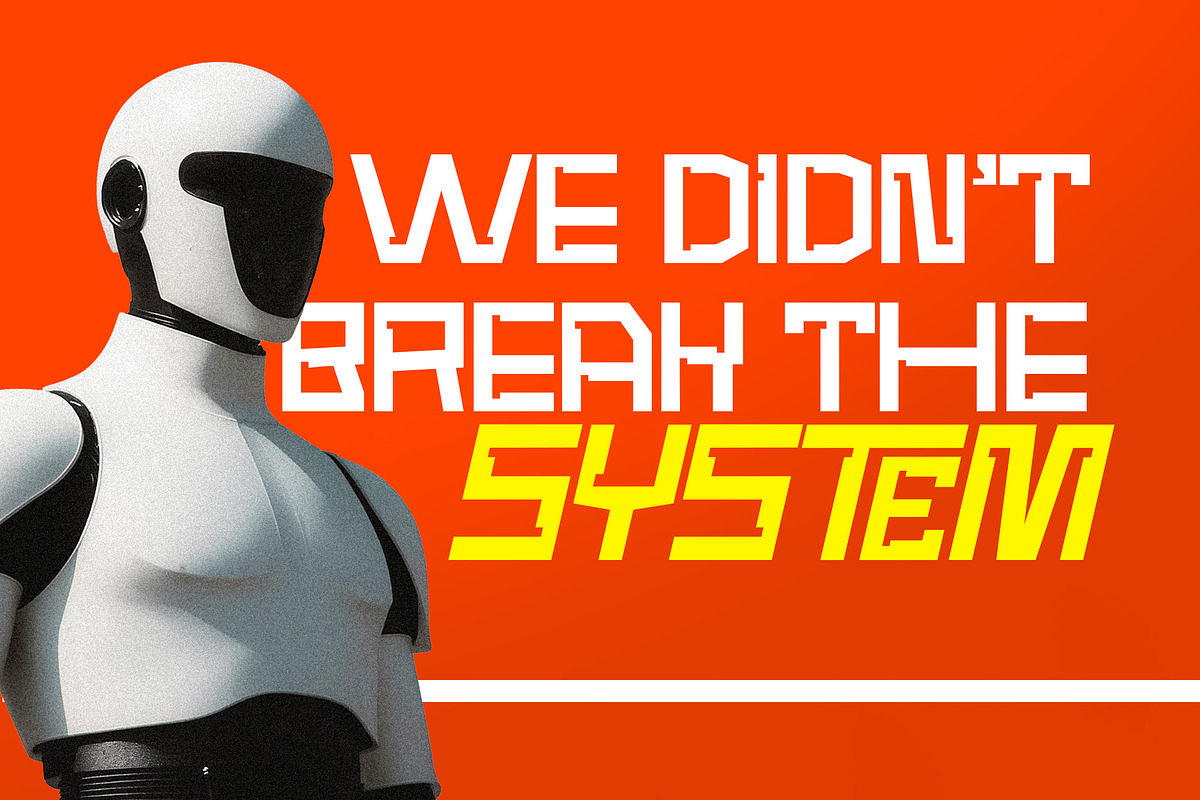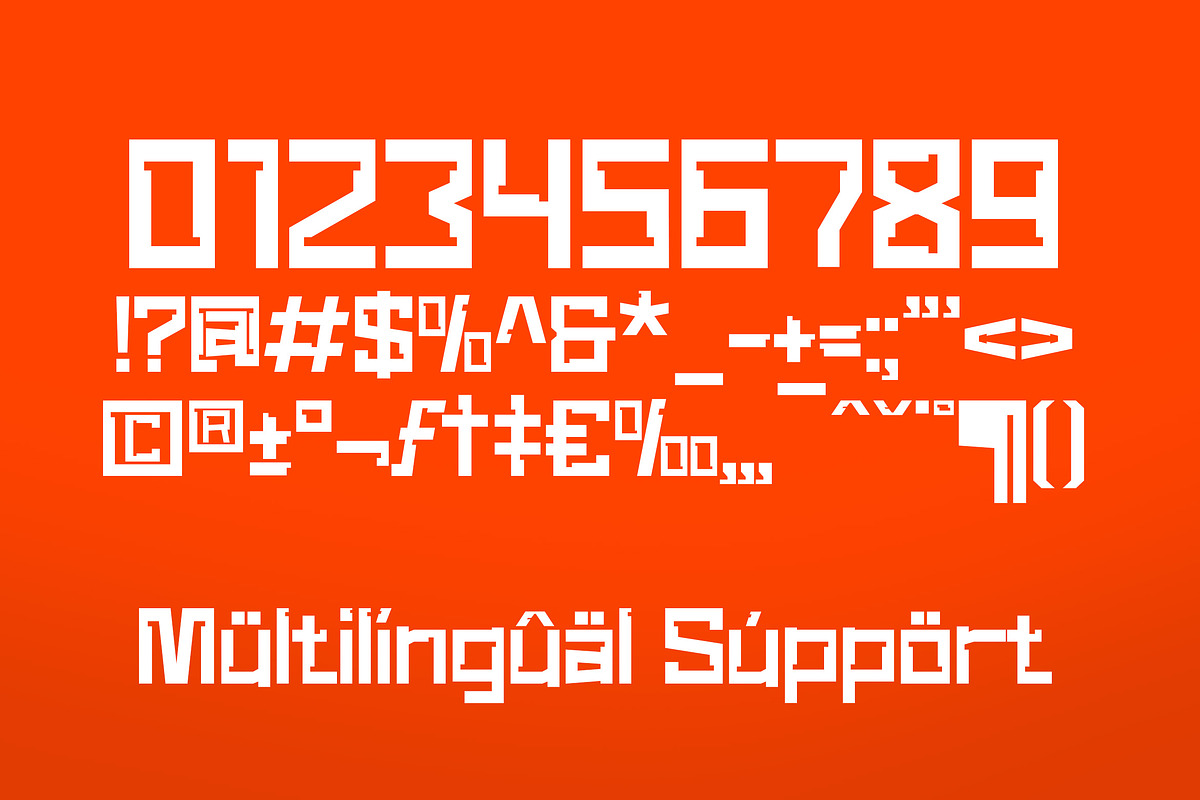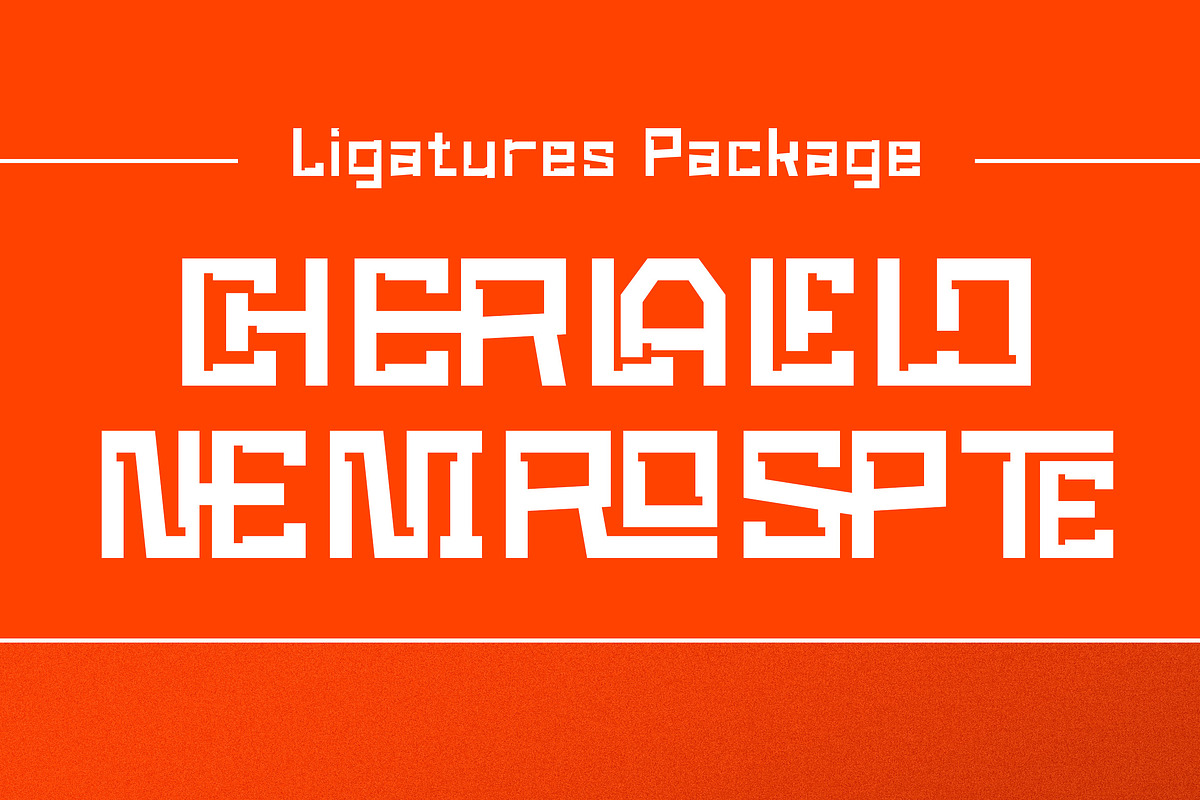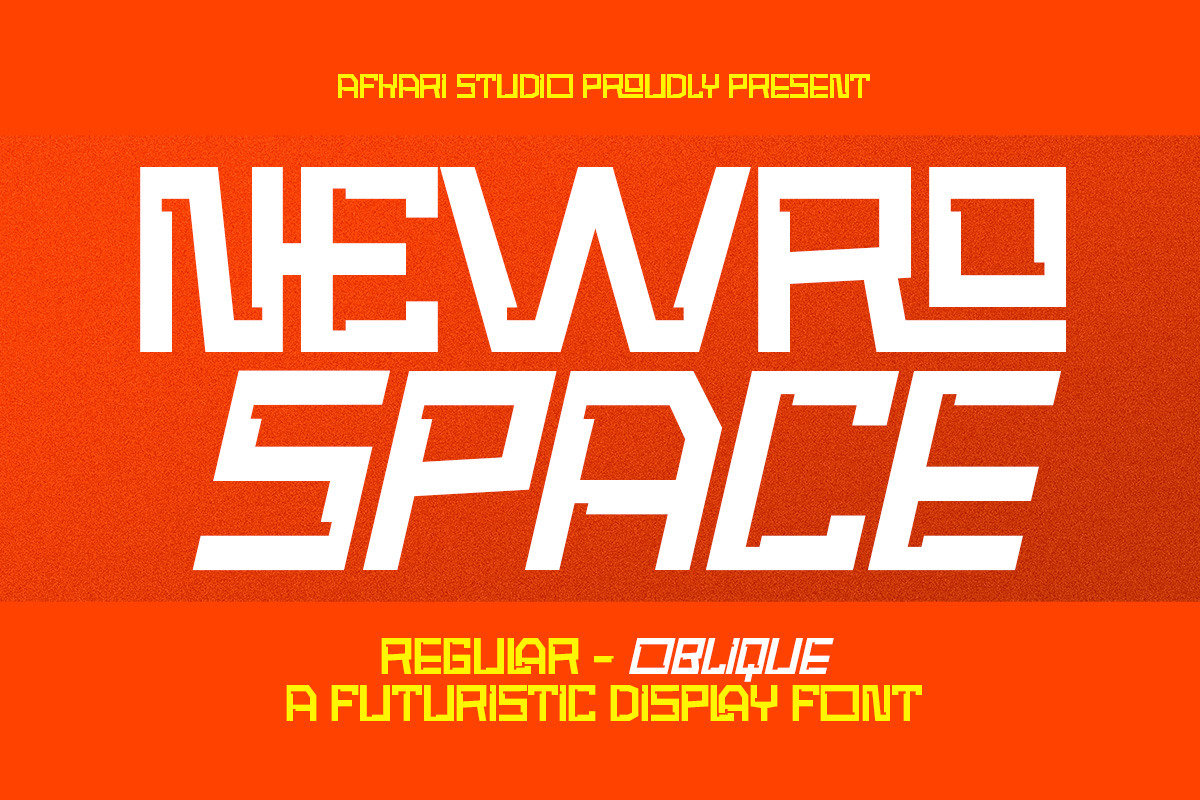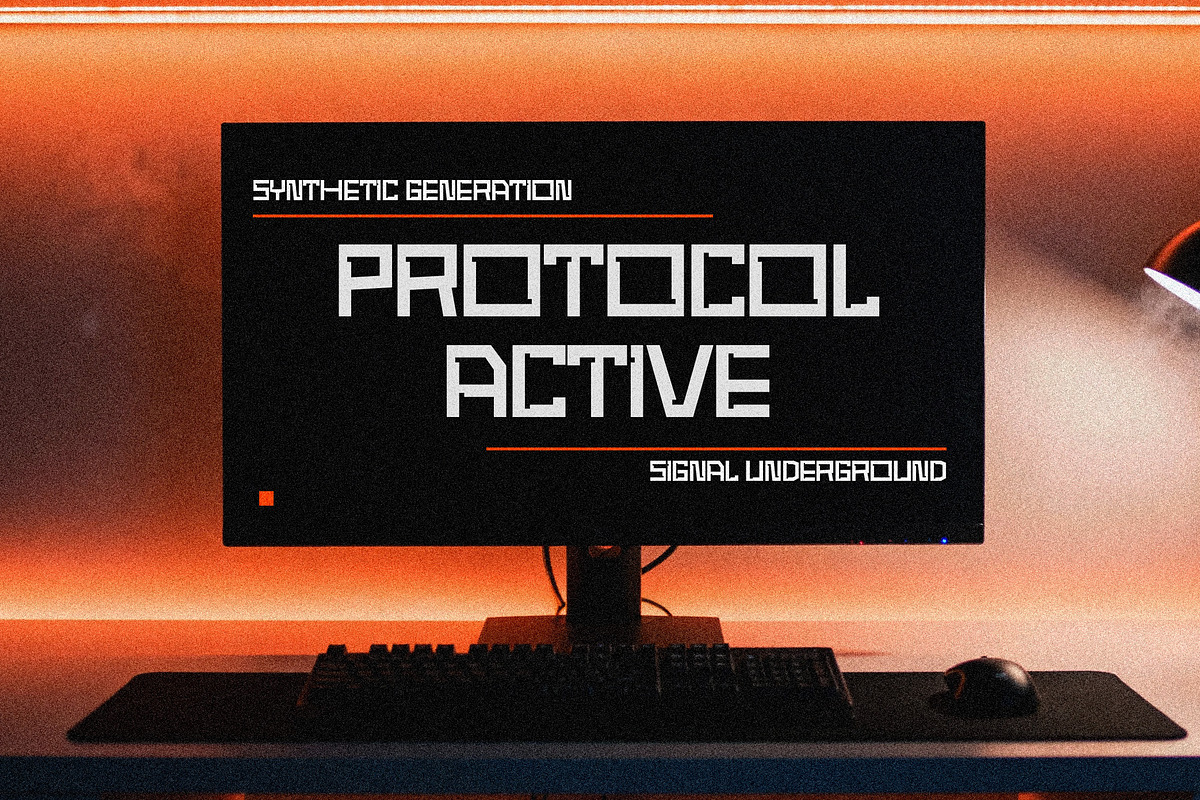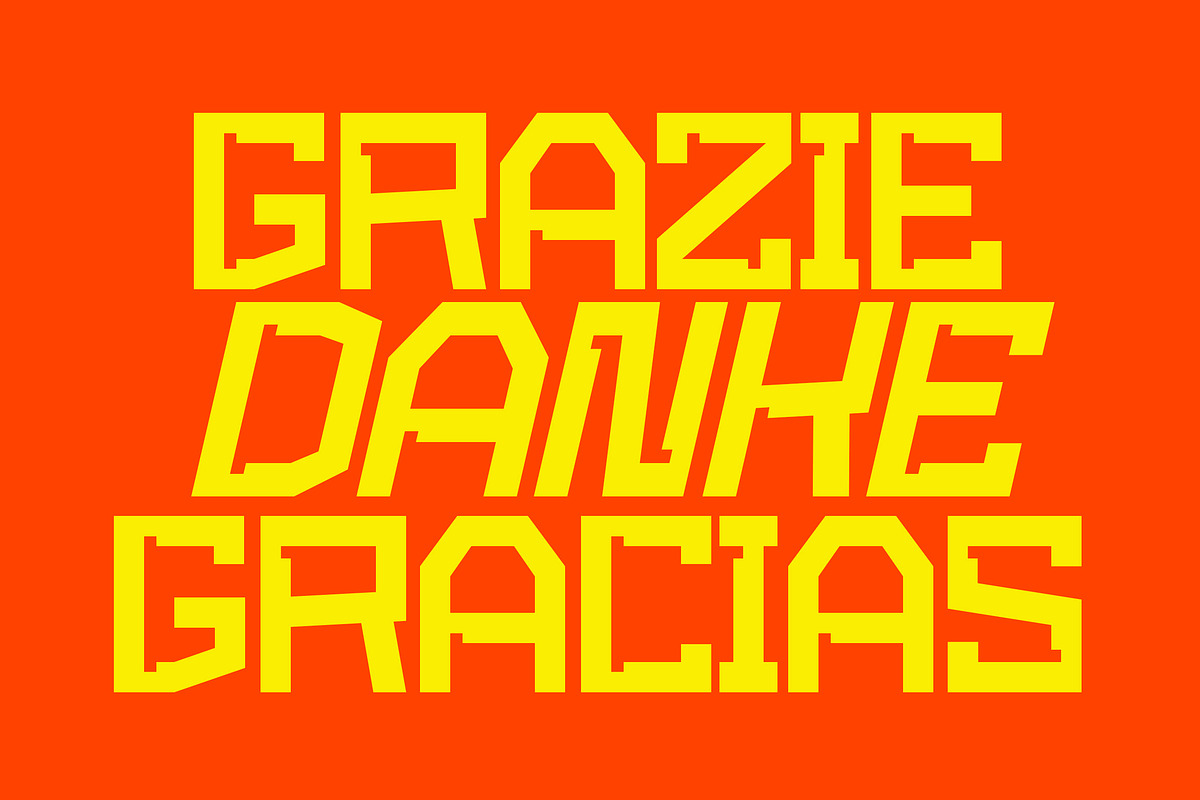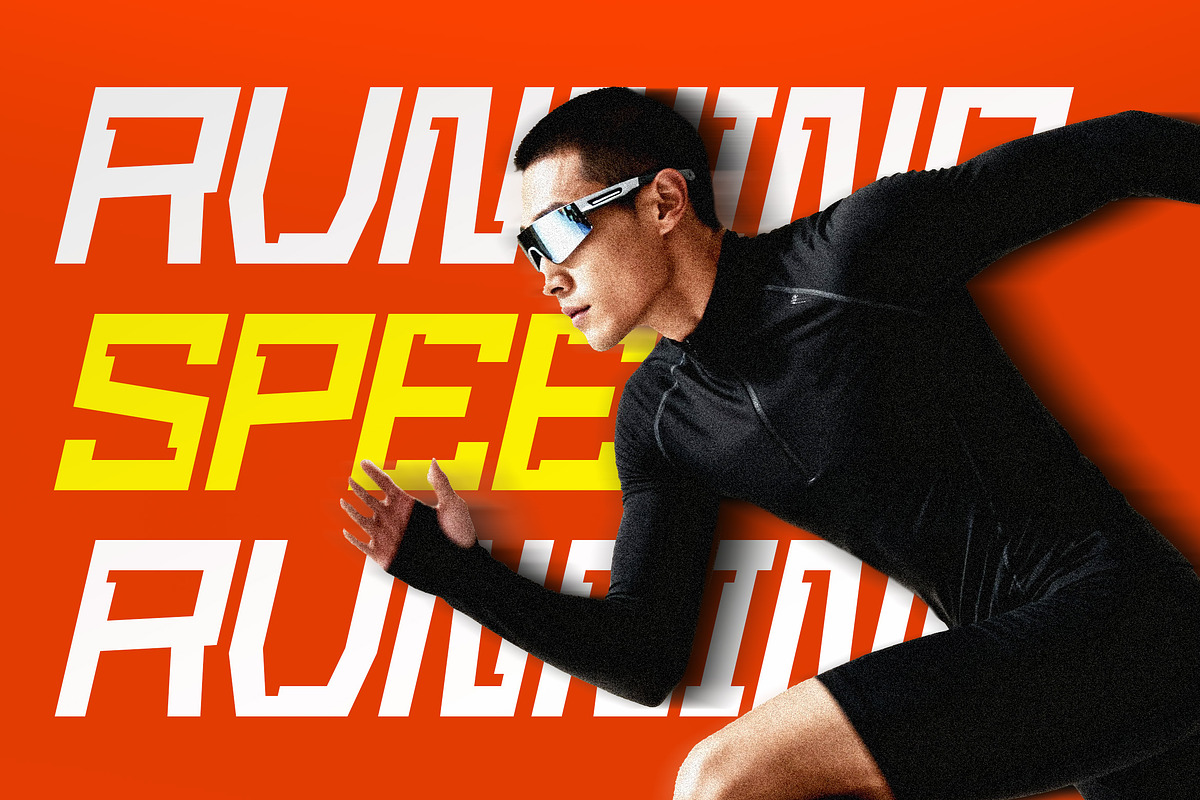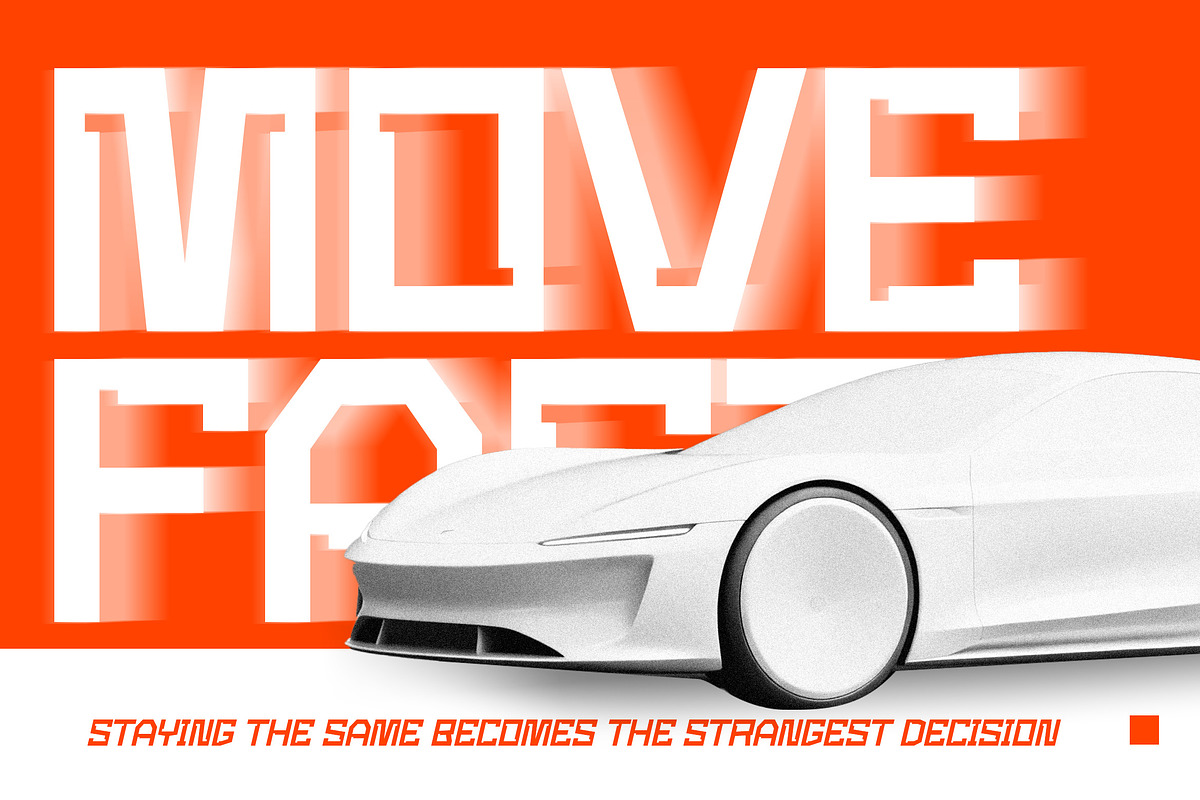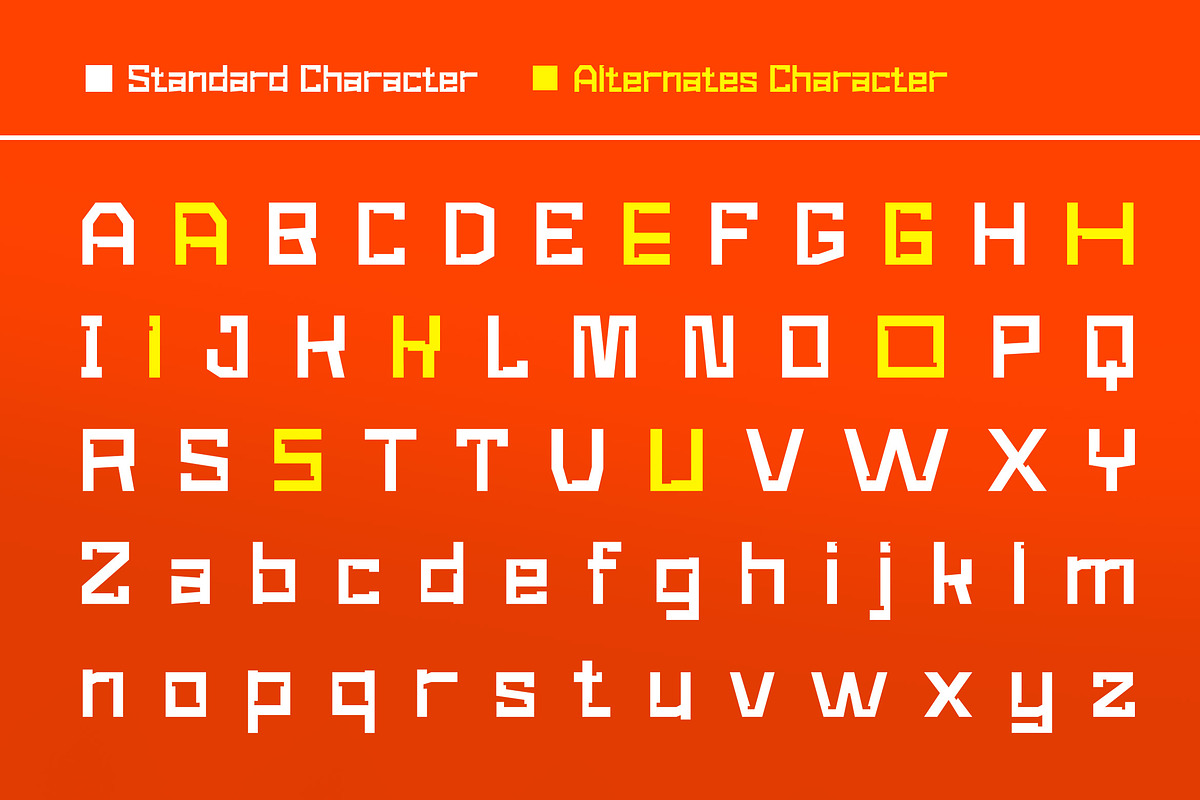
Newro Space - Modern Futuristic Font
Newro Space - Modern Futuristic Display Font
Newro Space is a sleek modern futuristic display font designed to capture the spirit of innovation, technology, and forward-thinking design. With sharp geometric forms, balanced proportions, and a clean sci-fi aesthetic, Newro Space delivers a bold visual impact while remaining readable and versatile.
Available in Regular and Oblique styles, this font gives you flexibility to create dynamic layouts—use Regular for strong structure and Oblique for motion, speed, and futuristic energy. It’s ideal for tech branding, space themes, gaming visuals, startup identities, posters, UI headlines, and modern digital experiences.
Newro Space is built for creators who want their designs to feel advanced, modern, and ahead of time.
Highlighted Features:
- Complete set of uppercase and lowercase letters, numerals, and punctuation marks
- Unique alternates and ligatures for enhanced character variation
- Multilingual support including characters such as ä, ö, ü, Ä, Ö, Ü, ß, ¿, and ¡
Bring a bold futuristic voice to your design with Newro Space – Modern Futuristic Display Font.